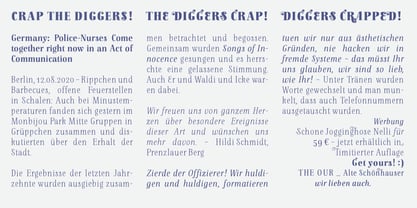
Anne Bonny
par Melli Diete
La famille de polices Anne Bonny a été conçue par Melli Diete et publiée par Melli Diete. Anne Bonny contient 14 styles et options de package familial.
Anne Bonny is a modern face with a candy touch. She is noble and confident, bloomy and playful. If you want to give your texts a warm and fabulous note, Anne Bonny is the right one. You can choose between a range of Open Type Features, for example the Swashes Feature for decorating the Upright styles letters as well as the Italics.
À propos Melli Diete
Chi* within letters – harmonic fonts in balance for different aspects of life. As a child, Melli drew little typographic posters to be pinned in the streets. The message was simple: Think of love. Melli Diete is running a Berlin based Type Foundry with – somehow – energetic fonts. Her letters are unique, full of character and made for your creative experience – in harmony and sympathy. While drawing there is a creative mindset – somehow she likes to break free from tradition – of course with typographic knowledge and a sharp eye on the letterforms – she studied type design passionately. Somehow it is more: to influence with creativity, to letting the chi flow in front of a typographic background. Readability is a must, as well as smileys inclusive. She already won some design prices and never runs out of ideas. Lovely fonts! – made in Berlin. :) This is the personal foundry for Melli Diete.